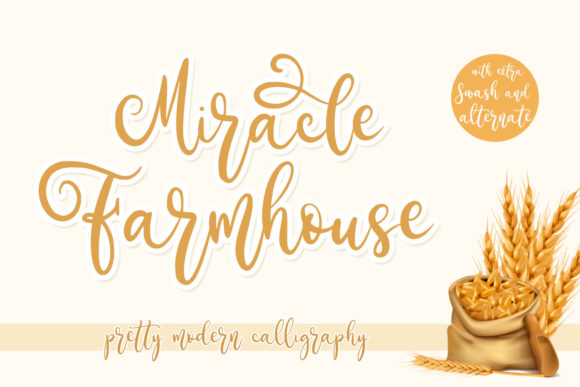
Introducing **Miracle Farmhouse Font**, a beautifully crafted script font that exudes both charm and elegance. Its delicate strokes and flowing curves evoke a sense of nostalgia and romance, making it perfect for adding a personal touch to your creative projects.
Step into a world of heartwarming designs with **Miracle Farmhouse**, a font that captures the essence of handwritten artistry. Whether you're creating wedding invitations, heartfelt thank-you cards, or captivating quotes, this font will elevate your words with its graceful presence.
With **Miracle Farmhouse**, you can effortlessly create designs that resonate with your audience. Its versatility extends to logos, business cards, and any project that calls for a handwritten flair. Let your creativity flourish as you explore the endless possibilities that this font has to offer.
**Miracle Farmhouse** is more than just a font; it's an invitation to express your emotions and tell your story in a unique and captivating way. Its PUA encoding ensures effortless access to glyphs and swashes, empowering you to add intricate details and flourishes to your designs.
Embrace **Miracle Farmhouse** and discover the joy of creating designs that speak to the heart. Let your imagination soar as you craft projects that leave a lasting impression. Experience the magic of this enchanting font and unlock a world of creative possibilities.